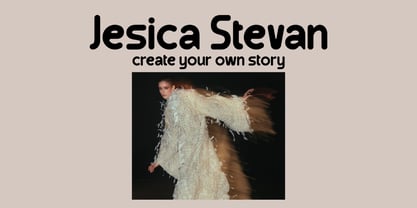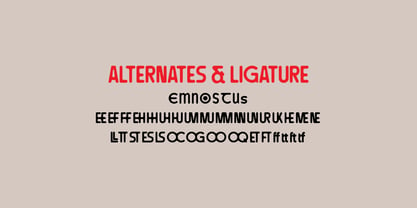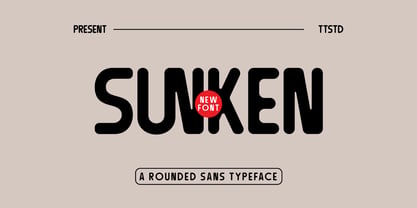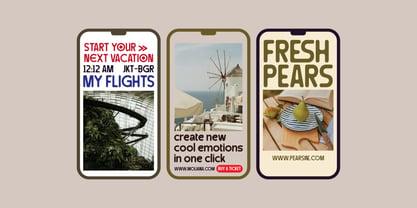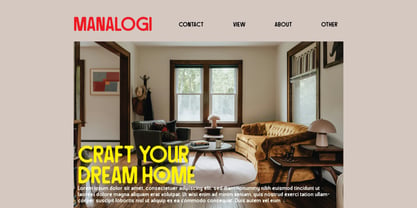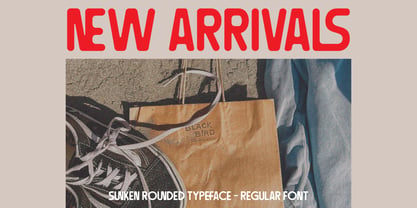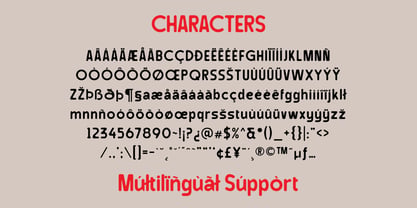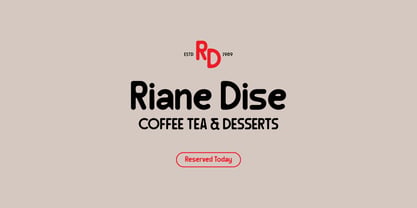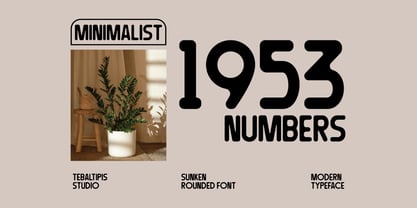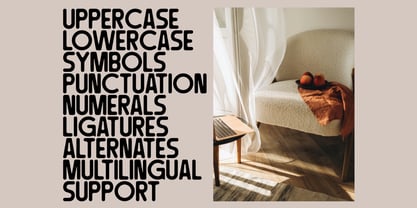
Sunken Rounded
by Tebaltipis Studio
The Sunken Rounded Font Family was designed by Dzulka Elfira and published by Tebaltipis Studio. Sunken Rounded contains 1 styles. More about this family
Sunken Rounded Font is a rounded Sans font. It can easily be matched to an incredibly large set of projects, so add it to your creative ideas and notice how it makes them stand out! Banky Sans Font come with 250+ glyphs. The alternative characters were divided into several Open Type features such as Swash, Stylistic Sets, Stylistic Alternates, and Ligature. The Open Type features can be accessed by using Open Type savvy programs such as Adobe Illustrator, Adobe InDesign, Adobe Photoshop Corel Draw X version, And Microsoft Word. And this Font has given PUA unicode (specially coded fonts). so that all the alternate characters can easily be accessed in full by a craftsman or designer. Uppercase & Lowercase International Languange & Symbols Support Punctuation & Number PUA Unicode Range Standard Ligatures Discretionary Ligatures Stylistic Alternates Stylistic Set.
Designers: Dzulka Elfira
Foundry: Tebaltipis Studio